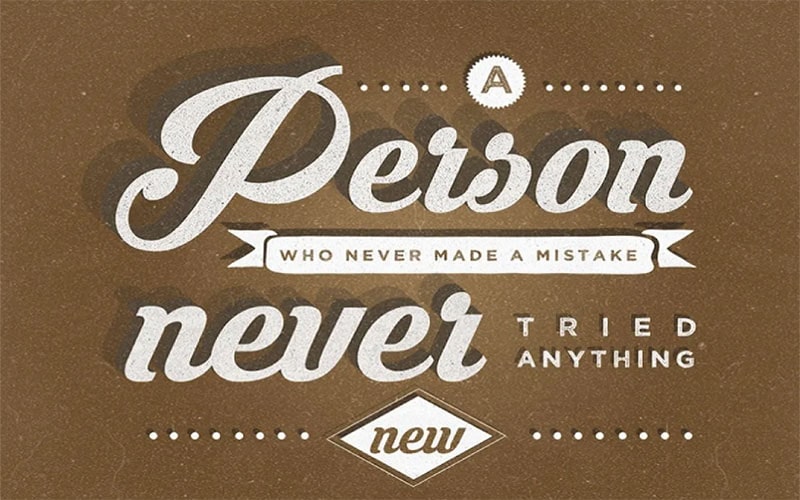
Krinkes Font is a stylish and modern script typeface that exudes elegance and sophistication. It was designed by Måns Grebäck, a Swedish typeface designer known for his wide range of decorative and script fonts.
Måns Grebäck has created numerous typefaces that have gained popularity in various design communities, and this Font stands out as one of his most refined and versatile creations.
The font is often associated with vintage designs but remains relevant in contemporary projects due to its timeless appeal. It is a script typeface with a distinct calligraphic style.
It is characterized by its flowing, cursive letters, which are smooth yet possess a certain sharpness that adds to their elegance. The strokes are clean and well-balanced, with gentle curves and delicate flourishes that give the font a sense of movement and grace.
Krinkes Font
| Font Name: | Krinkes Font |
| Style: | Modern, Old School, Typeface |
| Font Designer: | Mans Greback |
Krinkes comes in a single style, which is highly ornate and suitable for applications that require a touch of class and sophistication. Suitable for boutique stores, cafes, and businesses that want to convey a classic, refined image.
Works well in logos that need a signature or handcrafted feel, adding a personal touch to the brand identity. The font supports multiple languages, primarily those using the Latin alphabet, making it versatile for international projects.